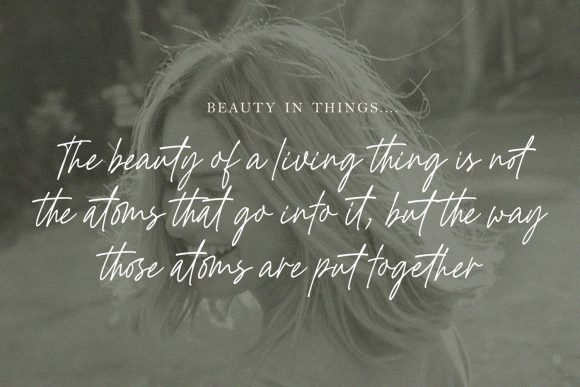
Golden Hopes Font: Elevate Your Designs with Elegance and Sophistication
In the world of typography, a font can make or break a design. A well-crafted font can elevate a creation from ordinary to extraordinary, adding a touch of elegance and sophistication that captivates audiences. One such font that has been making waves in the design community is Golden Hopes Font. This dazzling script font is neatly crafted and highly detailed, making it a wonderful asset to any font library. In this article, we’ll dive into the world of Golden Hopes Font, exploring its features, benefits, and uses.
What is Golden Hopes Font?
Golden Hopes Font is a stunning script font that boasts a high level of detail and craftsmanship. Its elegant and flowing lines make it perfect for a wide range of design projects, from branding and advertising to packaging and editorial design. This font is designed to add a touch of sophistication and luxury to any creation, making it a popular choice among designers and artists.
Key Features of Golden Hopes Font
- PUA Encoded: Golden Hopes Font is PUA (Private Use Area) encoded, which means that all glyphs and swashes are easily accessible. This feature makes it simple to use and customize the font to suit your design needs.
- Highly Detailed: The font is meticulously crafted with attention to detail, ensuring that every letterform and swash is of the highest quality.
- Elegant and Flowing Lines: Golden Hopes Font features elegant and flowing lines that give it a luxurious and sophisticated feel.
- Versatile: This font is suitable for a wide range of design projects, from elegant branding and advertising to creative packaging and editorial design.
Benefits of Using Golden Hopes Font
So, why should you choose Golden Hopes Font for your design projects? Here are just a few benefits of using this stunning script font:
- Adds Elegance and Sophistication: Golden Hopes Font adds a touch of elegance and sophistication to any design, making it perfect for luxury brands and high-end products.
- Enhances Readability: The font’s clear and flowing lines make it easy to read, even in smaller sizes.
- Increases Versatility: Golden Hopes Font can be used for a wide range of design projects, from digital to print.
- Easy to Customize: The font’s PUA encoding makes it simple to access and customize glyphs and swashes.
Uses of Golden Hopes Font
Golden Hopes Font is a versatile font that can be used for a wide range of design projects. Here are some ideas to get you started:
- Branding and Advertising: Use Golden Hopes Font to create elegant and sophisticated branding and advertising materials, such as logos, brochures, and billboards.
- Packaging Design: Add a touch of luxury to your packaging design with Golden Hopes Font, perfect for high-end products and premium brands.
- Editorial Design: Use Golden Hopes Font to create beautiful and elegant editorial designs, such as magazines, newspapers, and books.
- Digital Design: Golden Hopes Font can be used for digital designs, such as website headers, social media graphics, and email marketing campaigns.
Tips for Using Golden Hopes Font
Here are some tips for using Golden Hopes Font effectively in your design projects:
- Pair with Simple Fonts: Pair Golden Hopes Font with simple and clean fonts to create a striking contrast.
- Use for Headings and Titles: Use Golden Hopes Font for headings and titles to add a touch of elegance and sophistication.
- Experiment with Swashes: Experiment with the font’s swashes and glyphs to add a personal touch to your design.
- Keep it Simple: Don’t overuse Golden Hopes Font – keep your design simple and elegant to let the font shine.
In conclusion, Golden Hopes Font is a stunning script font that can elevate any design project with its elegance and sophistication. With its PUA encoding, highly detailed craftsmanship, and versatile uses, this font is a wonderful asset to any font library. Whether you’re a designer, artist, or simply a DIY enthusiast, Golden Hopes Font is sure to inspire and enhance your creations.